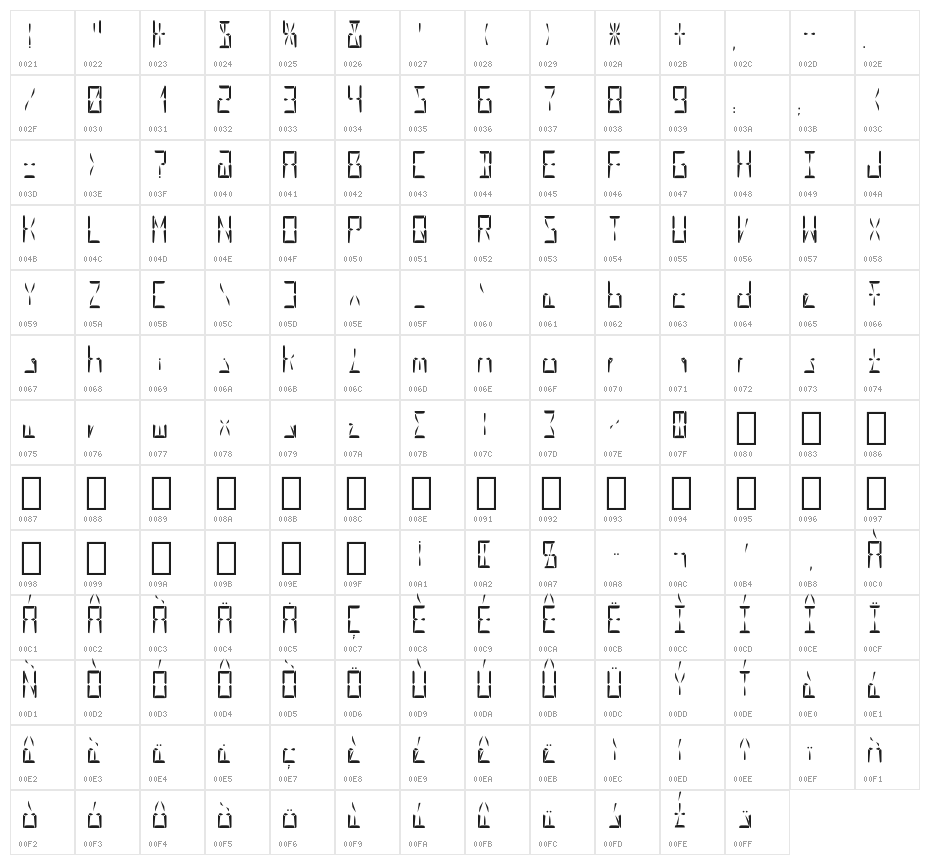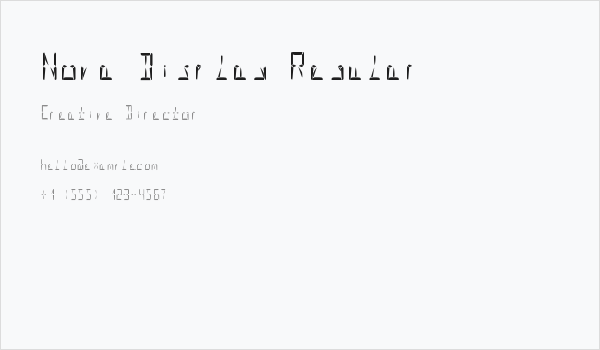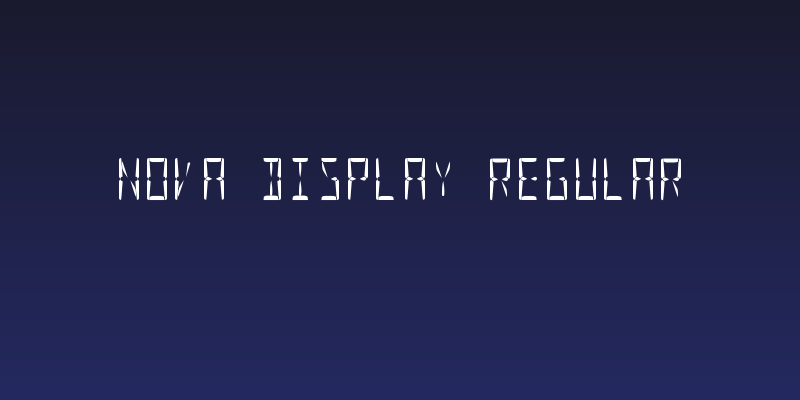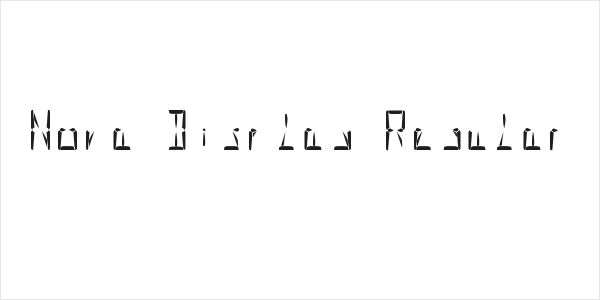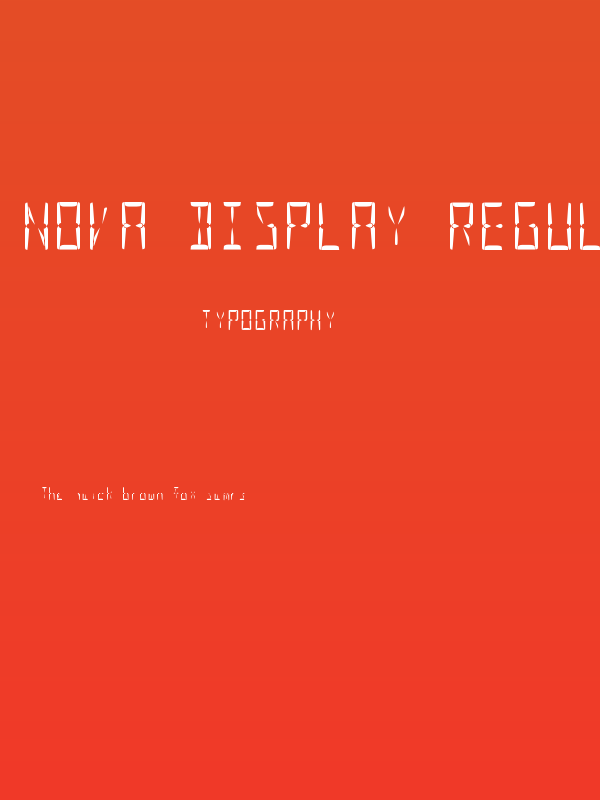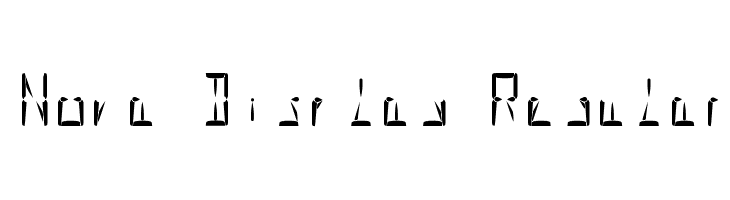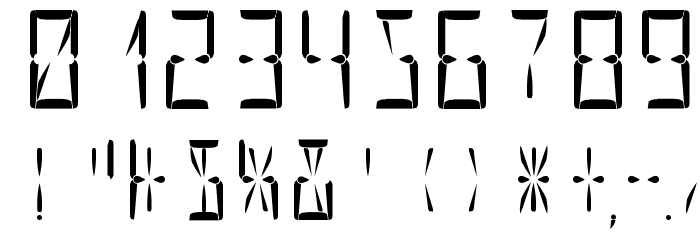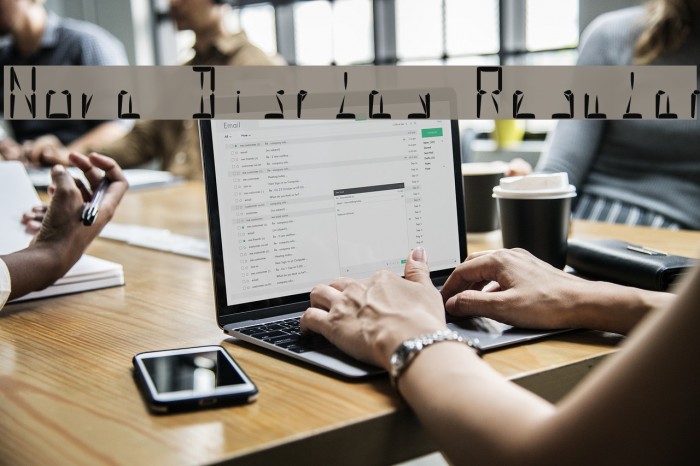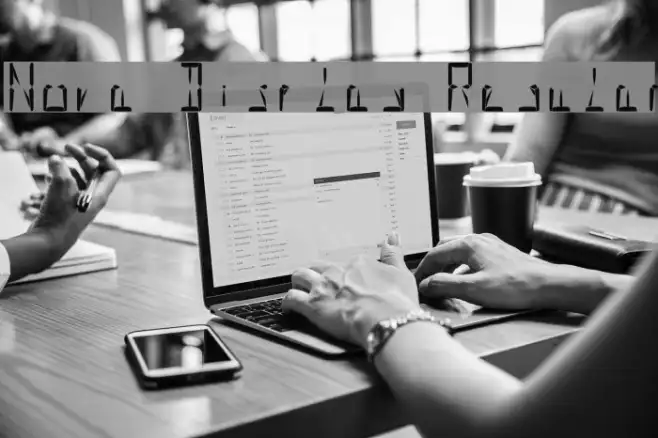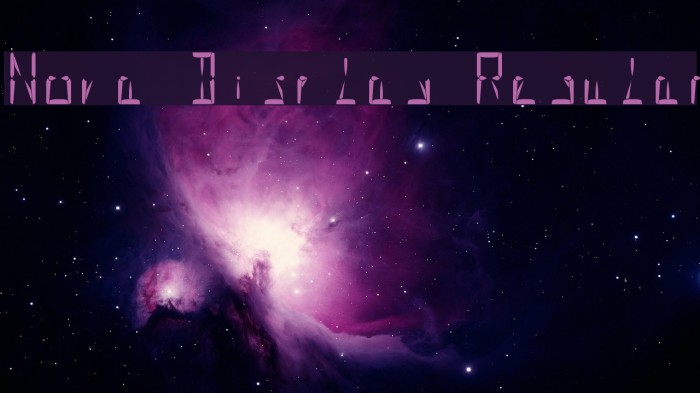
Nova Display Regular Font
Nova Display Regular Description
This font features a unique, futuristic design with a geometric and angular style. Each character is constructed with a series of connected lines and shapes, creating a digital or robotic appearance. The uppercase and lowercase letters maintain a consistent structure, with sharp edges and a uniform height. The numbers and special characters follow the same design principles, ensuring a cohesive look across all elements. The font's distinct style makes it stand out, ideal for projects that require a modern and innovative touch.
| Proposed Projects | Ideal for technology branding, sci-fi movie posters, video game titles, and modern digital interfaces. |